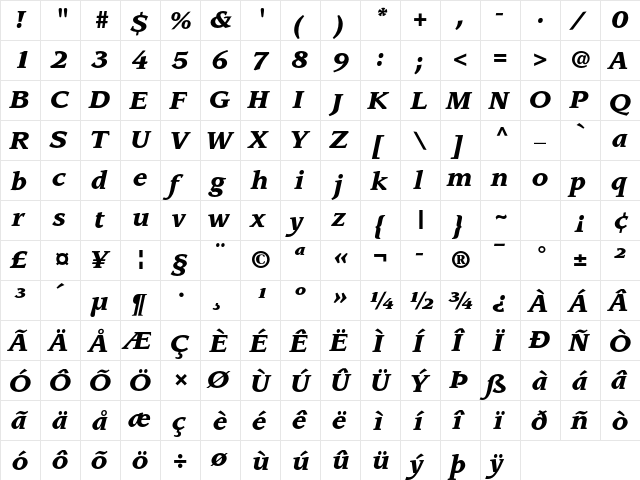
ITC Leawood Std Black Italic Font Preview
ITC Leawood Std Black Italic
ITC Leawood Std Black Italic Font Details
| Style | Black Italic |
| Designer | Leslie Usherwood |
Design Context for ITC Leawood Std Typeface
ITC Leawood Std echoes the hand-painted signage and woodblock typography of the American frontier, with a warm, rugged personality. The slanted form adds forward momentum and visual energy.
A natural fit for craft spirits, ranch branding, rodeo events, and Americana-inspired design work.
Font Pairing: Combine ITC Leawood Std with a simple slab or neutral sans — period-accurate companions reinforce the vintage feel without competing for attention.
Pro Tip: Use ITC Leawood Std for short, impactful bursts of text — it shines in poster headlines and product names rather than extended copy.